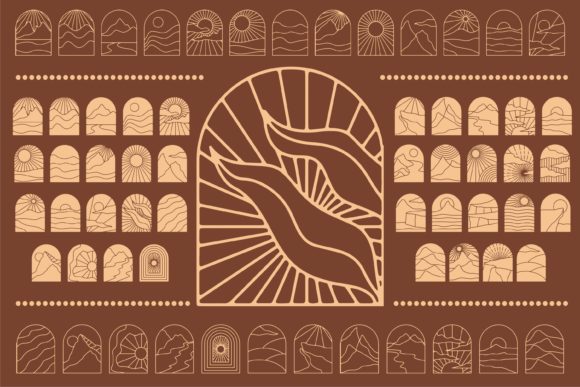
Nature Boho is a unqiue dingbats font featuring the scenery in the form of frames. No matter the topic, this font will be an incredible asset to your fonts’ library, as it has the potential to elevate any creation.
Nature Boho Font